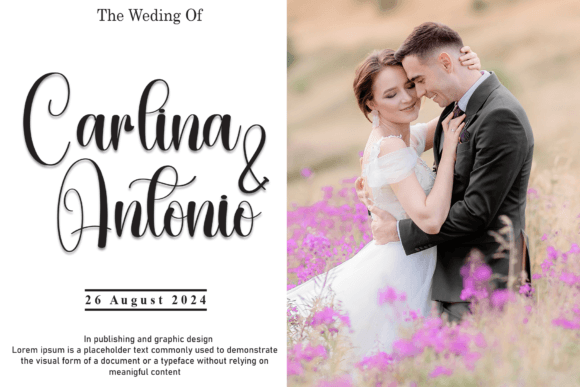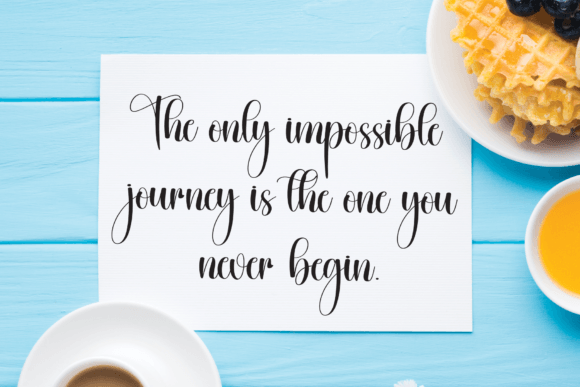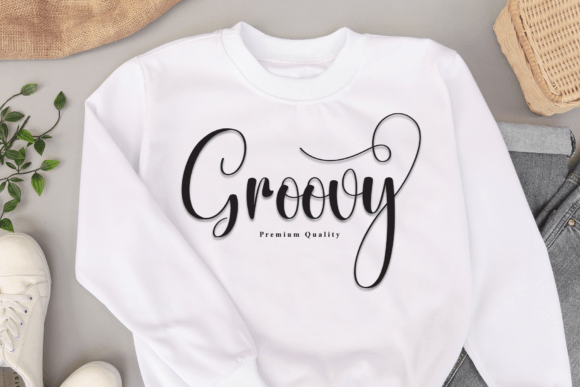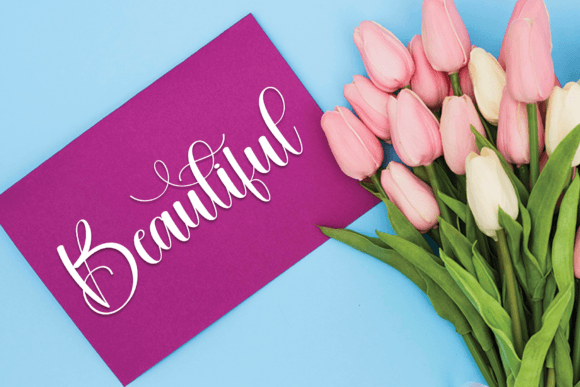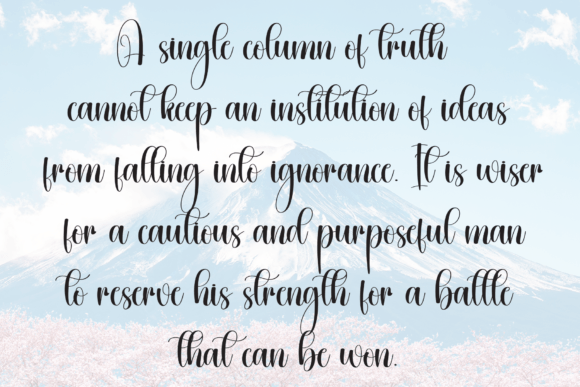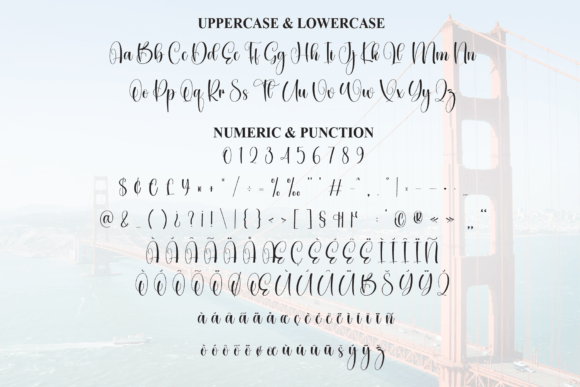
Bridging Font: A Charming Blend of Bold and Delicate Handmade Letters
In the world of typography, fonts play a crucial role in conveying messages, expressing emotions, and creating visual identities. For designers, crafters, and creative enthusiasts, finding the perfect font can be a daunting task. However, if you’re looking for a unique and eye-catching look, Bridging Font is an excellent choice. This charming font features a blend of bold and delicate handmade letters, making it perfect for a variety of design projects.
What is Bridging Font?
Bridging Font is a carefully crafted typeface that combines the elegance of delicate letters with the confidence of bold ones. The result is a visually appealing font that can add a touch of personality to any design. Whether you’re working on a logo, invitation, or social media graphic, Bridging Font is sure to make your project stand out.
Key Features of Bridging Font
- Handmade letters: Each letter in Bridging Font is carefully handcrafted, giving the font a unique and personal touch.
- Bold and delicate blend: The font features a perfect balance of bold and delicate letters, creating a visually appealing contrast.
- Unique and eye-catching look: The combination of bold and delicate letters makes Bridging Font perfect for designs that require a distinctive look.
- Versatile: Bridging Font can be used for a variety of design projects, from logos and invitations to social media graphics and more.
Who Can Benefit from Bridging Font?
Bridging Font is an excellent choice for designers, crafters, and creative enthusiasts who want to add a personal touch to their designs. Here are a few examples of professionals who can benefit from this font:
- Graphic designers: Bridging Font can be used for a variety of graphic design projects, from logos and branding materials to social media graphics and more.
- Crafters: Crafters who create handmade products, such as jewelry, candles, or soaps, can use Bridging Font to create unique and eye-catching labels and packaging.
- Stationery designers: Stationery designers can use Bridging Font to create beautiful and unique stationery sets, including invitations, greeting cards, and journals.
Tips for Using Bridging Font
To get the most out of Bridging Font, here are a few tips:
- Use it sparingly: While Bridging Font is a beautiful font, it’s best to use it sparingly to avoid overwhelming the design.
- Pair it with other fonts: Bridging Font can be paired with other fonts to create a unique and visually appealing contrast.
- Experiment with colors and textures: Add an extra layer of depth to your design by experimenting with different colors and textures.
Bridging Font is a unique and eye-catching typeface that can add a touch of personality to any design. With its charming blend of bold and delicate handmade letters, this font is perfect for designers, crafters, and creative enthusiasts who want to create visually appealing designs. Whether you’re working on a logo, invitation, or social media graphic, Bridging Font is an excellent choice.